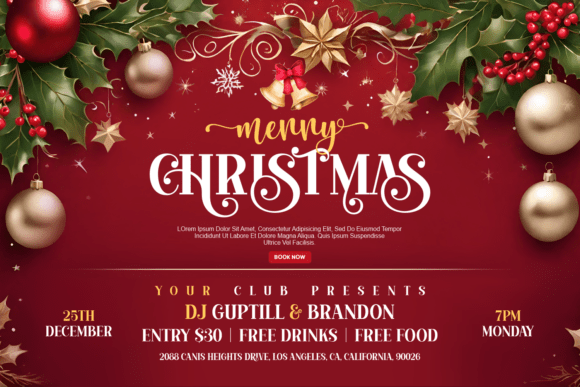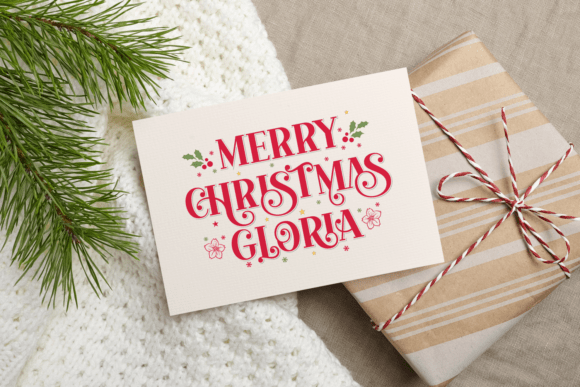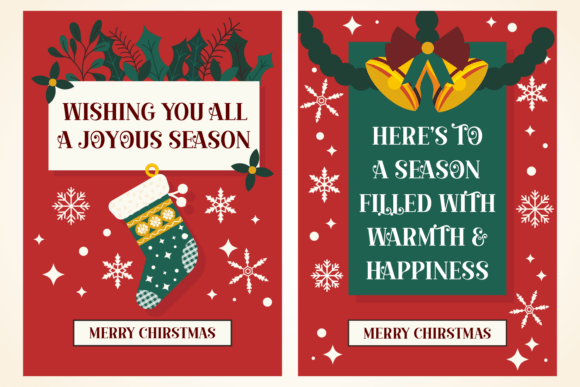
Introduction to Gloria Christmas Font
Gloria Christmas is a stunning, heavily stylized modern serif font, perfectly engineered to infuse your holiday graphics with a sense of grandeur, festive charm, and ornate flair.
The unique character of the Gloria Christmas typeface lies in its wonderfully exaggerated swashes and ligatures that transform every word into a festive centerpiece, ideal for large signs, banners, and bold titles This eye-catching display serif is built for impact, featuring striking red lettering and beautiful decorative glyphs that instantly signal the holidays.